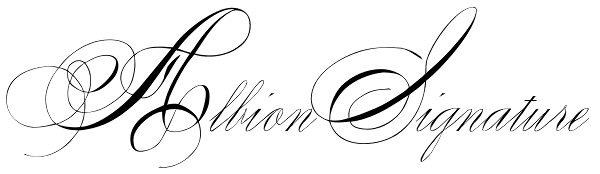
Albion Signature
Albion Signature is a value packed font of exceptional character, with lots of old world charm to make your next project personal and special. Containing over 2,200 glyphs, it’s large enough to handle any demanding project, big or small. It also...